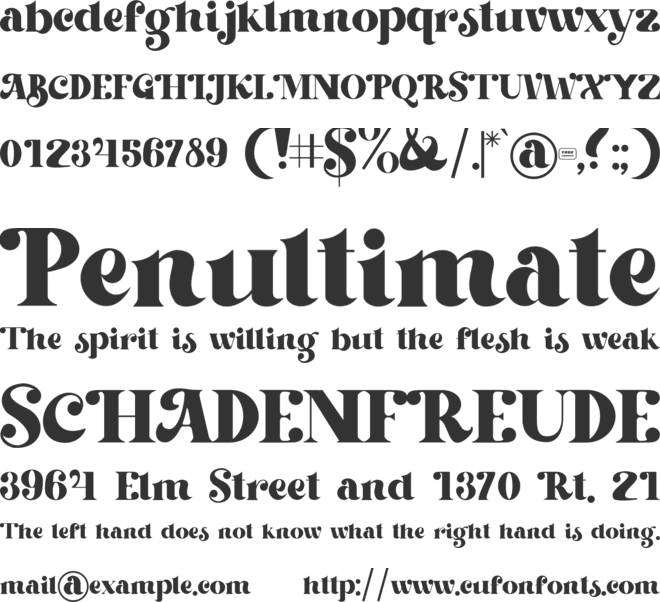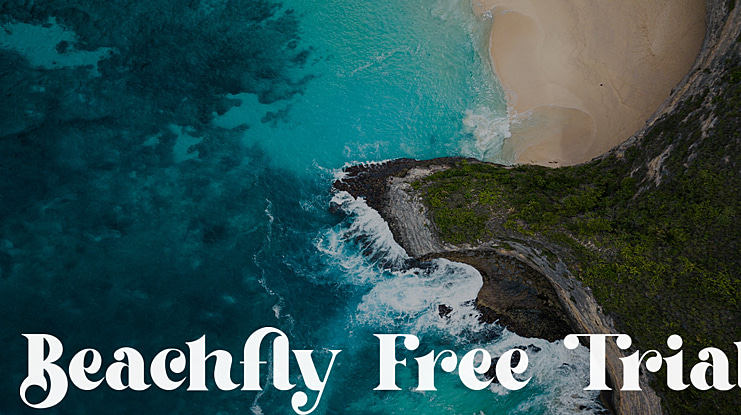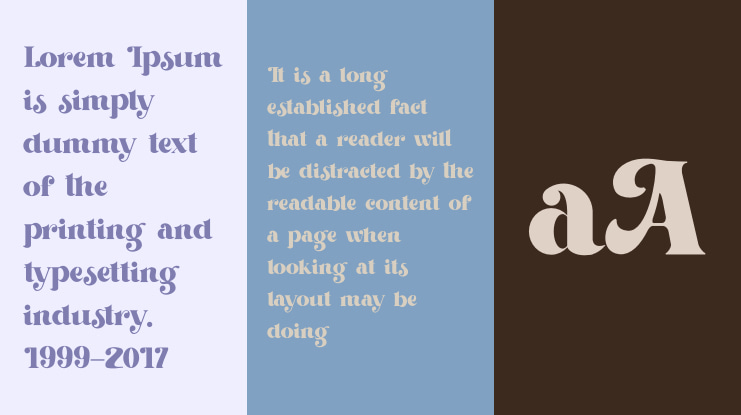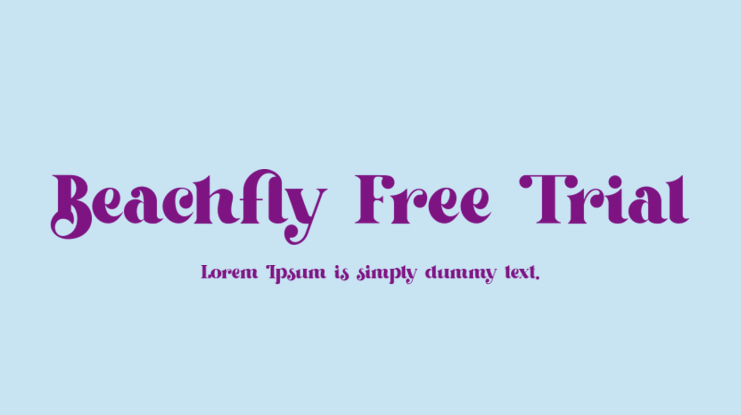
Beachfly Free Trial Font
If you’re looking for a retro and unique font (One which will bring all sorts of happiness to any project) the Beachfly font is just for you. It combines a sense of classic, cuteness, elegance and vintage which makes it distinctive enough to give any project life and energy. It’s a gorgeous font which can be used beautifully for wedding invitations, eye-catching social media posts, cute greeting cards and much more.